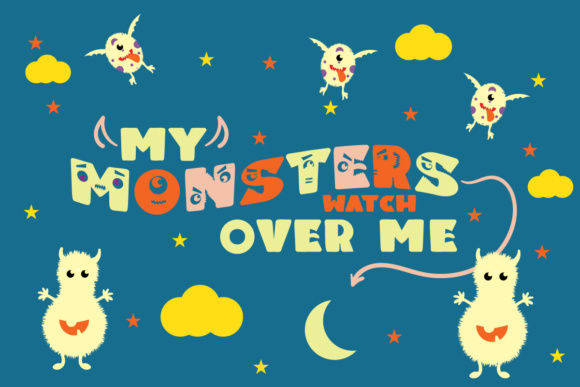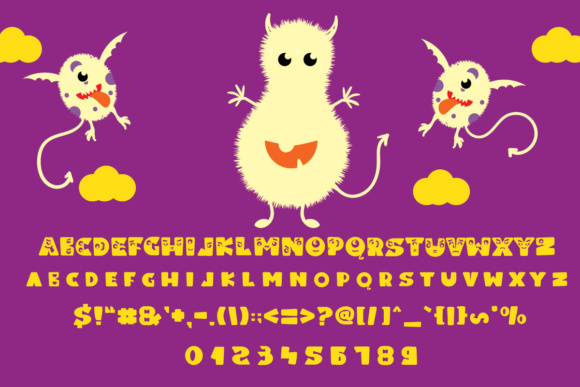
Unleash the Terror with Grey Monster Font: The Ultimate Display Font for Spooky Occasions
Are you looking for a font that will add a touch of spookiness to your designs, but still manages to be fun and playful? Look no further than the Grey Monster Font. This scary but fun display font is perfect for Halloween, scary camping trips, kids parties, and more. In this article, we’ll dive into the features of the Grey Monster Font and explore how you can use it to create eye-catching designs that will leave a lasting impression.
The Unique Feature of Grey Monster Font
The Grey Monster Font is not your average font. What sets it apart is its unique feature of having all capital letters feature scary faces. This makes it a one-of-a-kind font that is sure to grab attention. The faces are designed to be playful and fun, rather than purely terrifying, making it suitable for a wide range of occasions.
Perfect for Spooky Occasions
The Grey Monster Font is specifically designed with spooky occasions in mind. Whether you’re creating invitations for a Halloween party, designing a logo for a haunted house, or creating signage for a scary camping trip, this font is sure to set the tone. The playful yet spooky faces add a touch of whimsy to your designs, making them perfect for kids’ parties and other fun events.
Use Cases for Grey Monster Font
The Grey Monster Font is a versatile font that can be used in a variety of contexts. Here are some use cases to get you started:
- Halloween Invitations: Create spooky yet fun invitations for Halloween parties, trick-or-treat events, or haunted houses.
- Camping Trip Signage: Add a touch of spookiness to your camping trip signage, making it perfect for scary camping trips or outdoor events.
- Kids Parties: Use the Grey Monster Font to create fun and playful signage for kids’ parties, such as monster-themed birthday parties.
- Logo Design: Use the font to create a unique and eye-catching logo for your business or event.
Tips for Using Grey Monster Font
Here are some tips for using the Grey Monster Font effectively:
- Use it sparingly: While the font is fun and playful, it can be overwhelming if used excessively. Use it sparingly to add emphasis to key words or phrases.
- Pair it with other fonts: Pair the Grey Monster Font with other fonts to create visual interest and add depth to your designs.
- Experiment with colors: Don’t be afraid to experiment with different colors to add an extra layer of spookiness or fun to your designs.
| Font Name | Grey Monster Font |
| Author | Lickable Pixels |
The Grey Monster Font is a unique and versatile font that is perfect for adding a touch of spookiness to your designs. With its playful yet scary faces, it’s suitable for a wide range of occasions, from Halloween parties to kids’ parties. By following the tips outlined in this article, you can create eye-catching designs that will leave a lasting impression. So why not give it a try and unleash the terror with the Grey Monster Font?